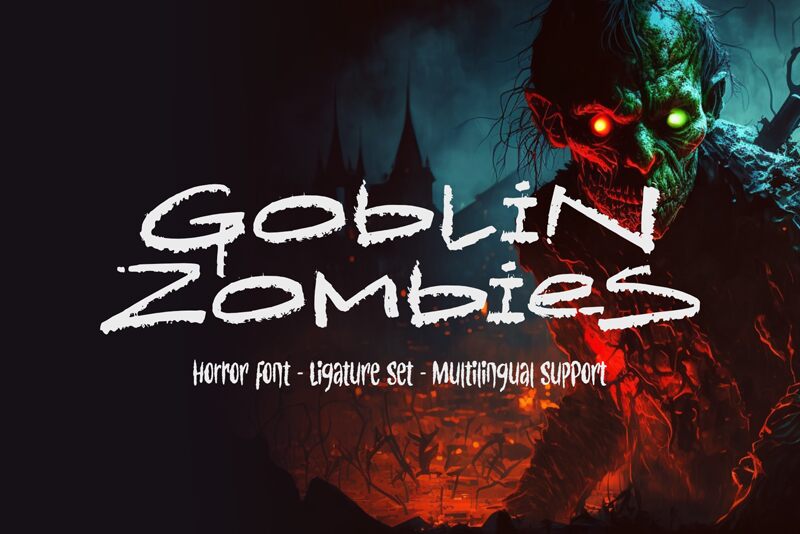
Goblin Zombies font by Horror Font is an eerie, horror-themed display font featuring a scary style and expanded width. This typeface injects any project with a spooky, otherworldly atmosphere that appeals to viewers instantly. Each glyph has rough textures and uneven edges contributing largely to the tingling and disturbing visual effects.
Achieve your dream horror project with this free typography option by using it in movie posters for horror films yet to be released or those already out there. Scary comics, cartoons, dramatic books, apparel design, social media platforms promotion or even gaming graphics will all make suitable use cases for Goblin Zombies.